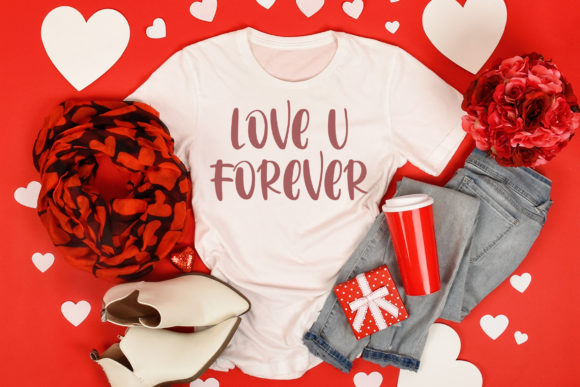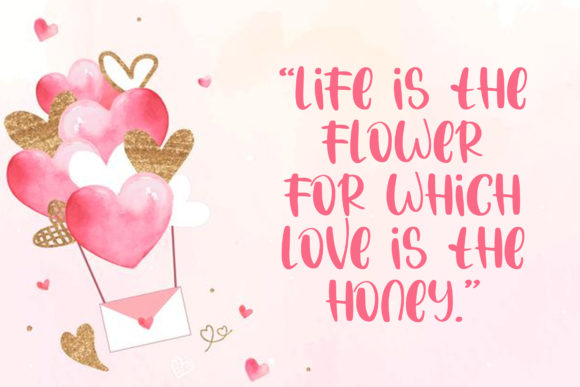
Kawaime Font
db-ku.com - Script & Handwritten -- Kawaime is a cute and charming handwritten font. Sweet and playful, this typeface can elevate the look of any creation ranging from product packaging to business cards, and more!